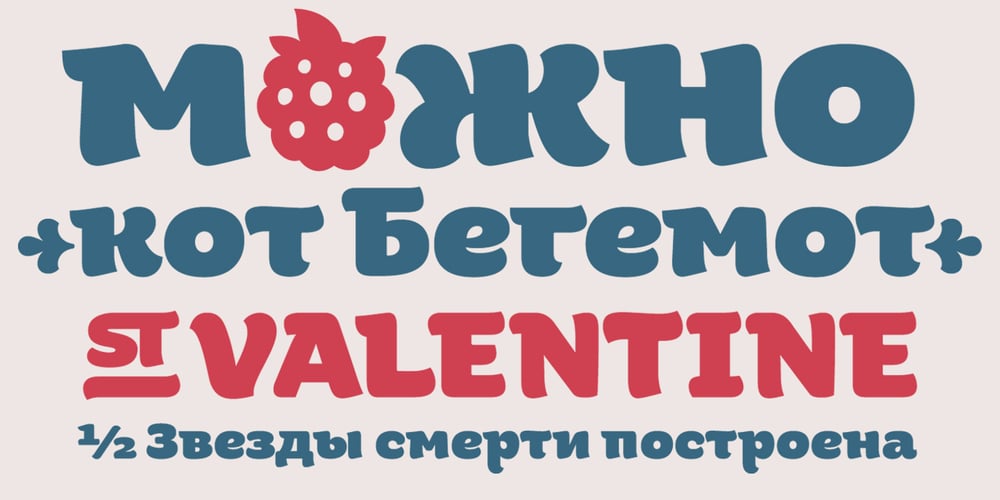
ALS Malina Font Family was designed by Ksenia Yerulevich and published by Art. Lebedev Studio. ALS Malina contains 1 styles and family package options. Malina (raspberry) is a plump, sweet-tempered display typeface. It comes in one style that includes small caps, ligatures, and ornaments. The face “speaks” several languages. Malina works wonders in titles and bite-size text nuggets. On top of the regular set of characters, the typeface hosts with ease a duck and fox, owl and crocodile, mammoth and pig. They’re irresistible when used by one or in bunches forming patterns. The typeface is ideal for signs, posters, sweets and kids product packaging; will feel at home in fun & entertainment stuff design and as a part of playful projects.